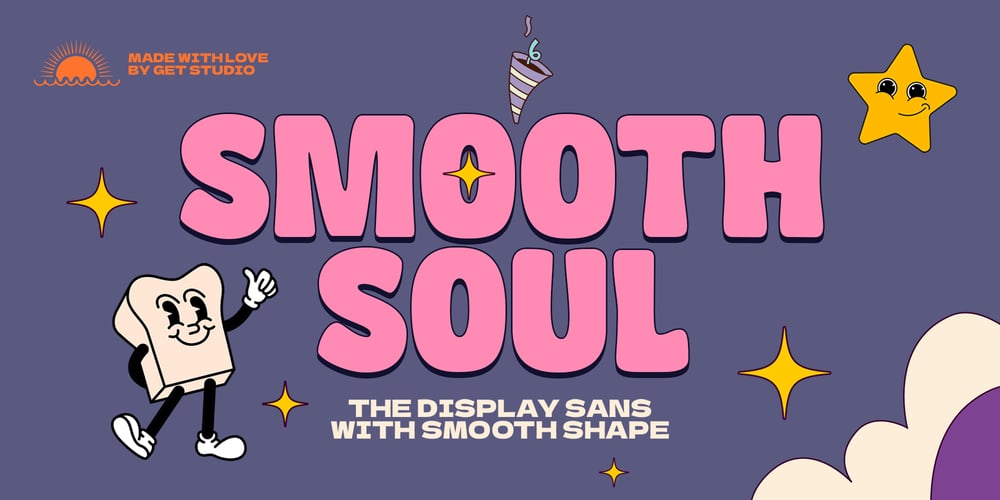
Smooth Soul Font Family was designed by Hermansyah and published by Get Studio. Smooth Soul contains 2 styles and family package options. SmoothSoul is a display sans-serif font with a smooth shape and a retro style characterized by its lack of decorative lines, which gives it a clean and modern-retro appearance.The smooth curves of this font create a sense of fluidity and ease, while the lack of serifs makes it feel relaxed and informal. The retro style of this font is evocative of the 1960s and 70s, with a nod to the playful and carefree design sensibilities of that era.Overall, this font is perfect for conveying a sense of fun and approachability, while still maintaining a sense of professionalism and modernity.